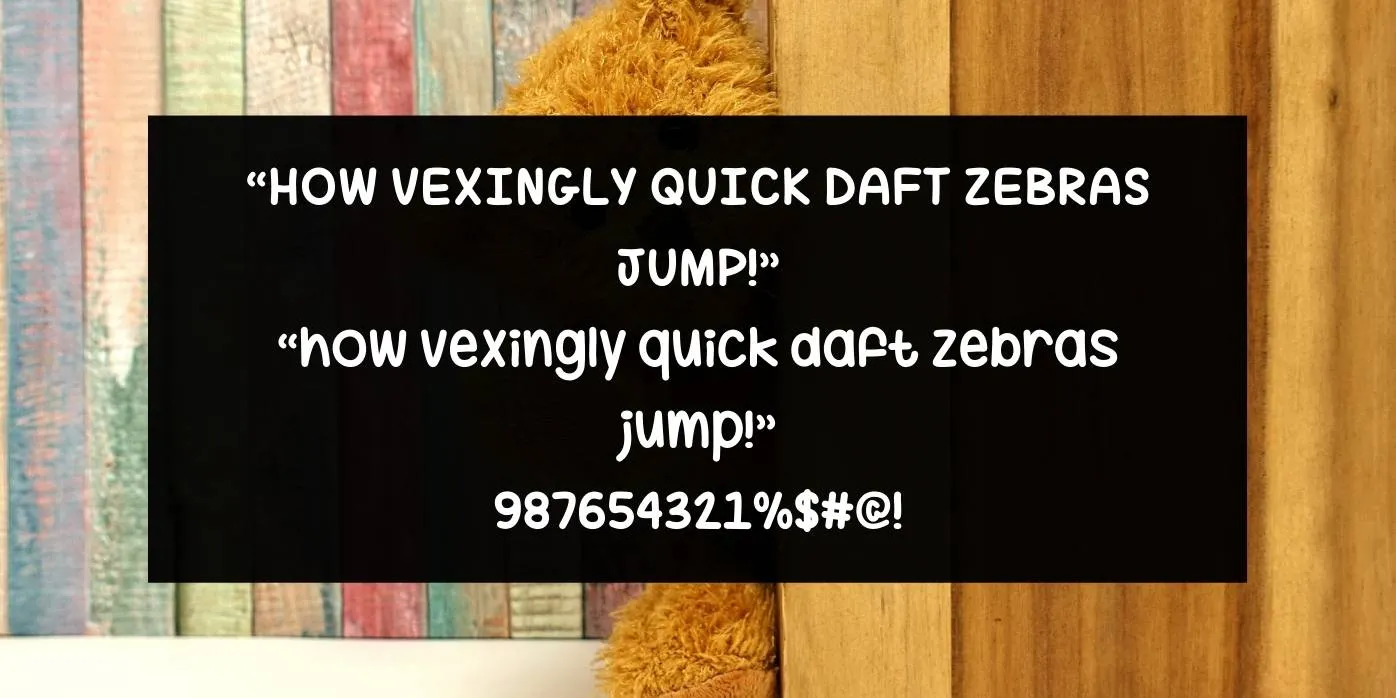
Hug Me Tight Font belongs to the Handwritten font family and was created by Misti’s Fonts. This typeface is available in TTF and OTF file formats. It has bold curved characters and a unique look which is perfect for any type of stylish project.
This font originates in one weight Regular and above then 200 attractive glyphs, and also contains capital case, small case, numerals, punctuations, symbols, signs, and a few special characters. Its unique and beautiful appearance can style your project wonderfully and attractively.
Enhancing Your Design with Hug Me Tight Font
This font is perfect for the making of logos, book covers, titles, headlines, video graphics, game graphics, website designs, app designs, ads, tags, advertisements, documents, branding, posters, slips, banners, statements, headers, and footers, and numerous other display presentations.
You can use this font style in the printing of different cards, fashion magazines, business layouts, t-shirts, posts, thumbnails, and so on. It is also fit for the formation of certified and informal assignments, houseware products, envelopes, and various other text designs, as it is more suitable for both digital screens and print media.
What type of font is Hug Me Tight Font?
This typeface belongs to the Handwritten font family and was created by Misti’s Fonts. It has bold curved characters and a unique look which is perfect for any type of stylish project.